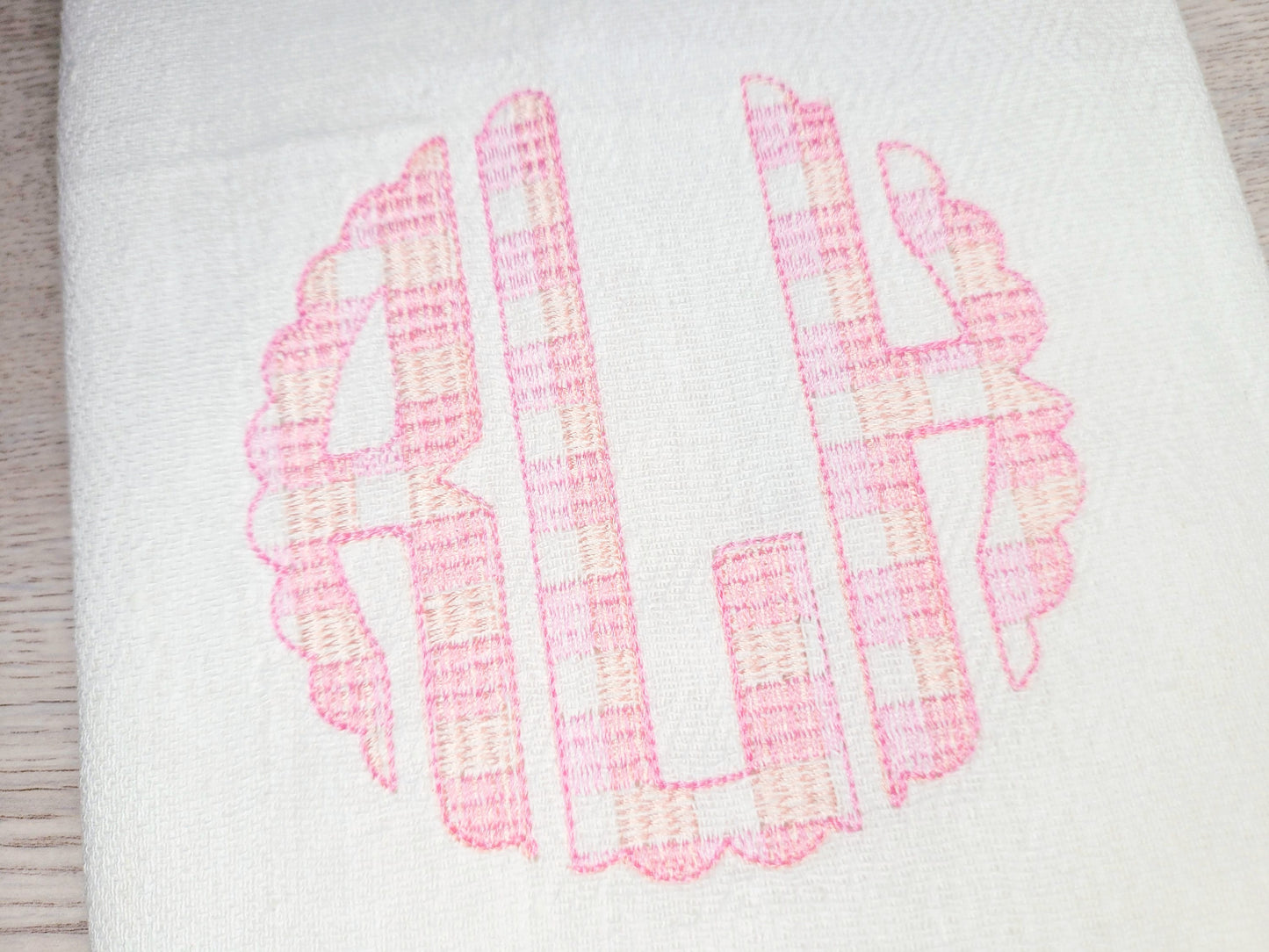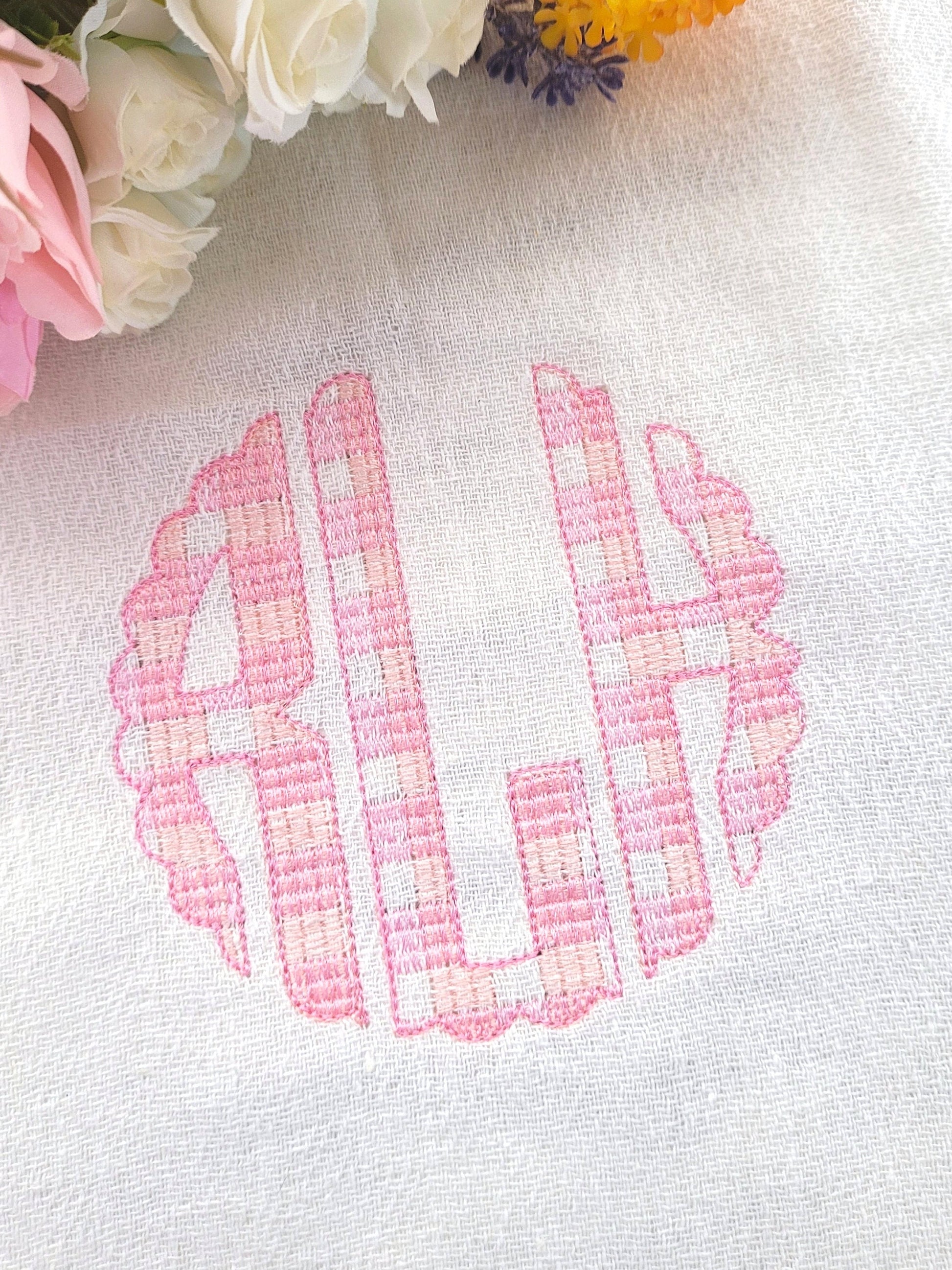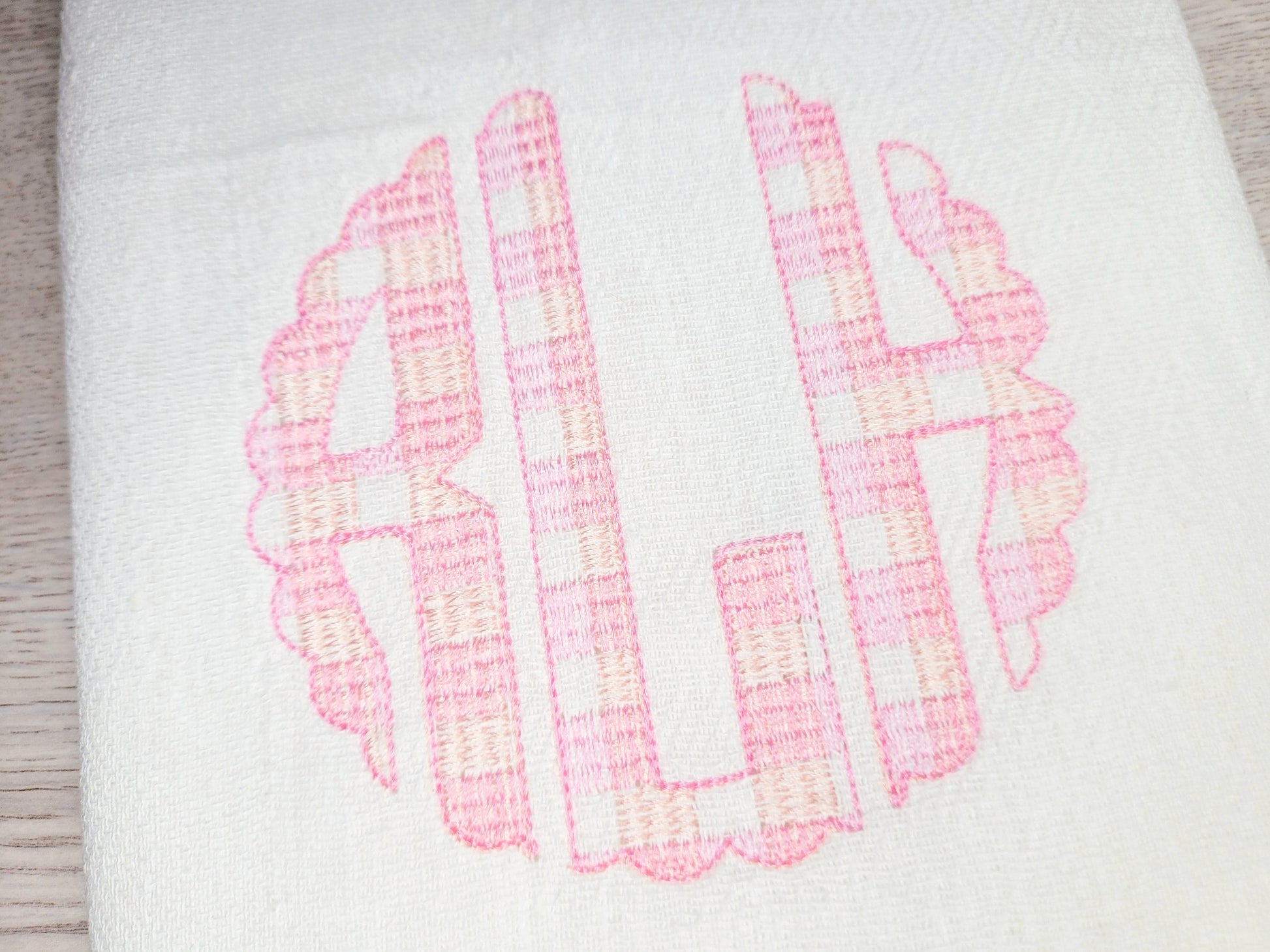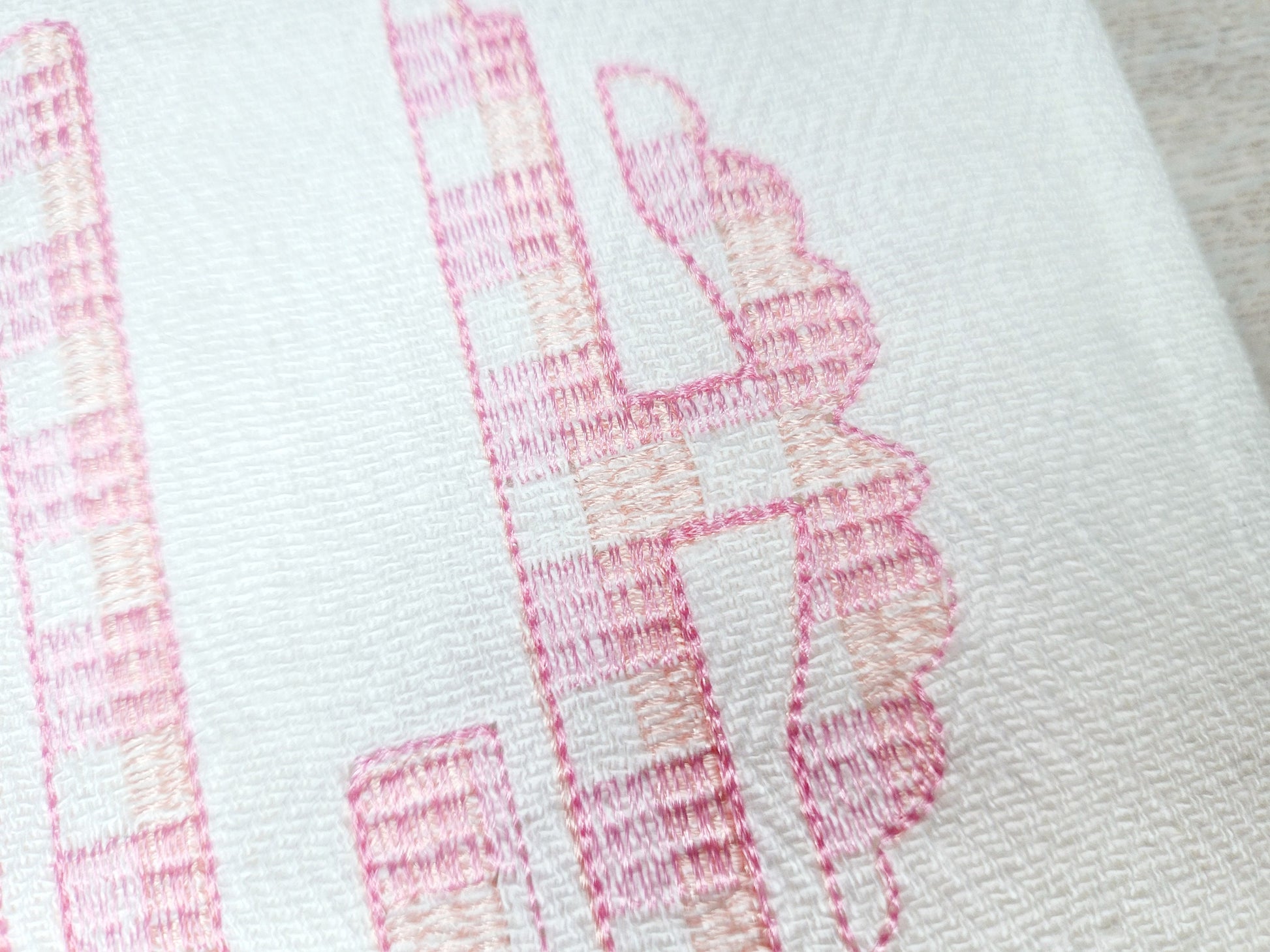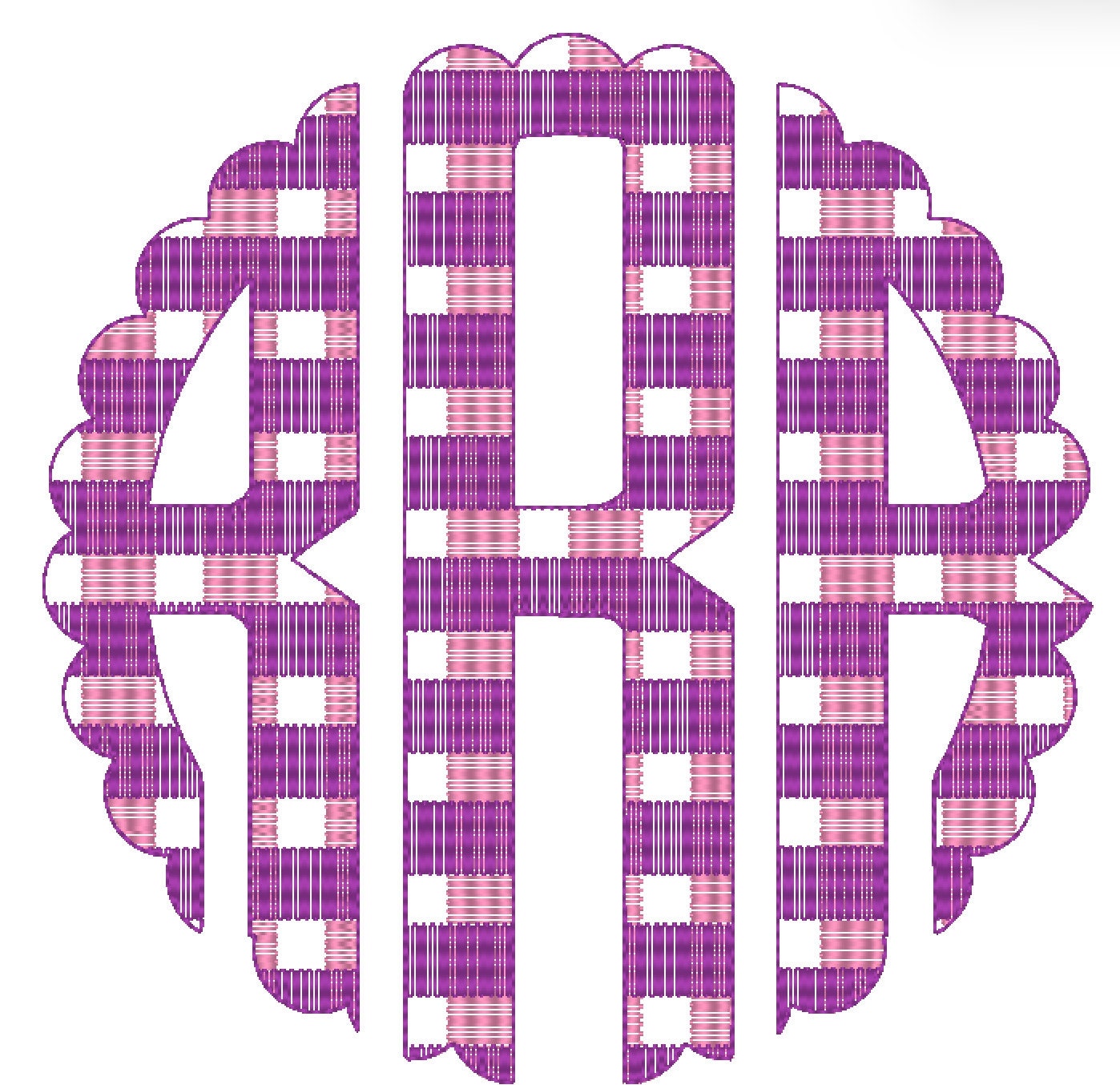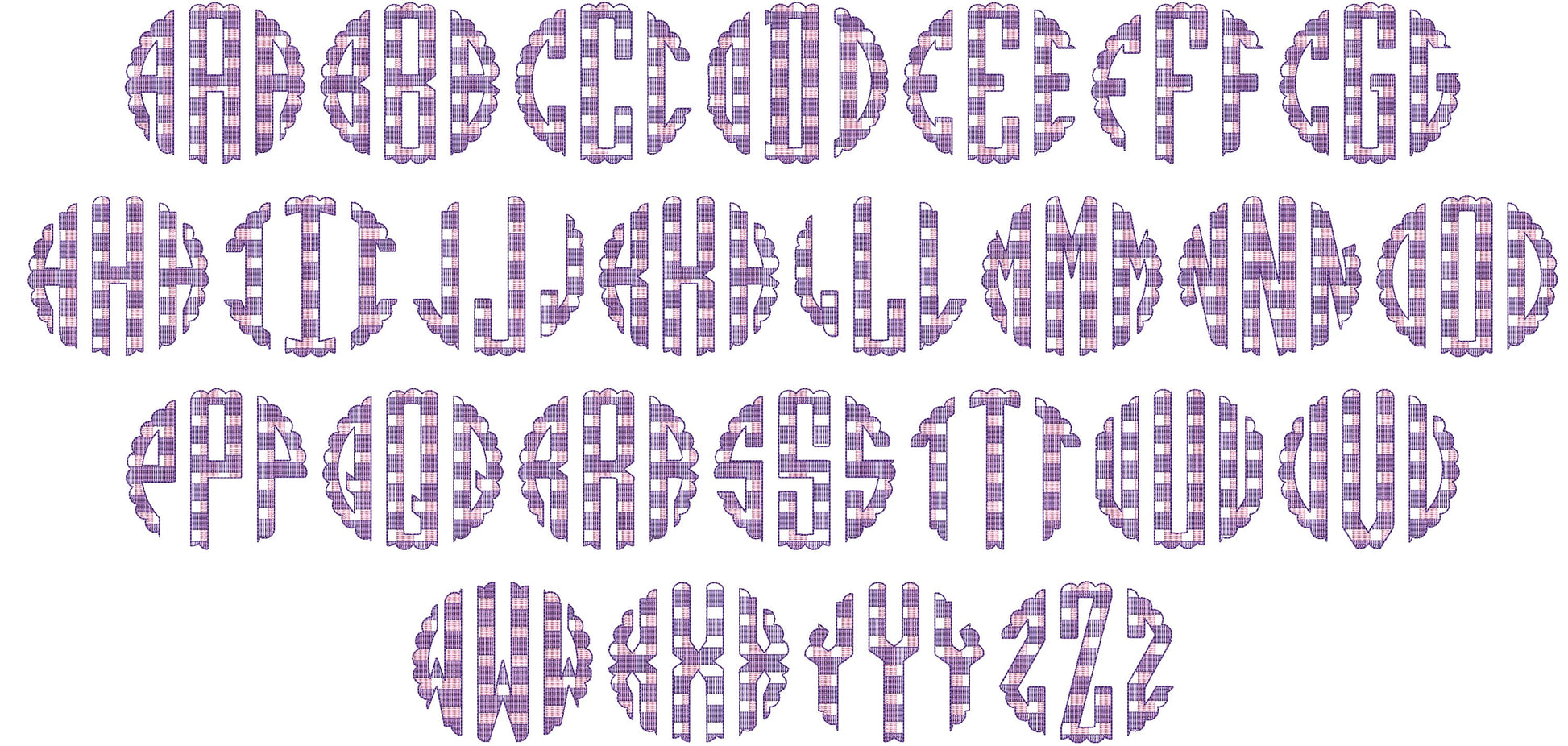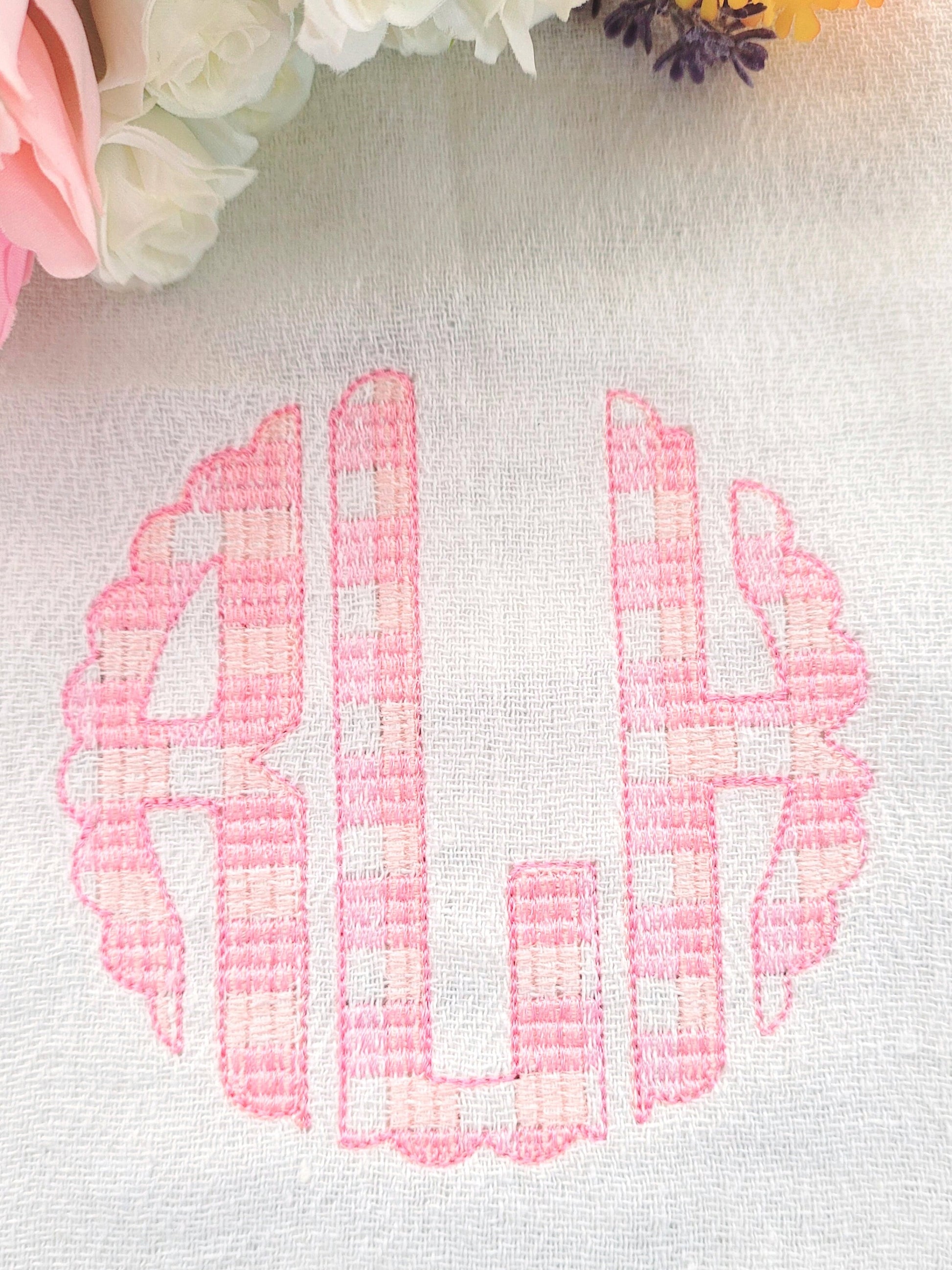
Scalloped Plaid Gingham Circle Monogram Font
Or click to open the linkA scalloped circle monogram with a tartan gingham pattern. Lovely for Christmas stockings, pillows, towels and wedding gifts.
A classic three-letter round monogram: 26 left, 26 center and 26 right letters. Nine sizes: 2, 2.5, 3, 4, 4.5, 5, 5.5, 7 and 9 inches. Fill stitch with a see-through checkered pattern, so the fabric shows.
- Scalloped plaid circle monogram
- 26 left, 26 center, 26 right letters
- 9 sizes, 2 to 9 in